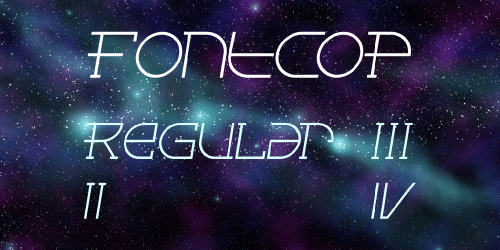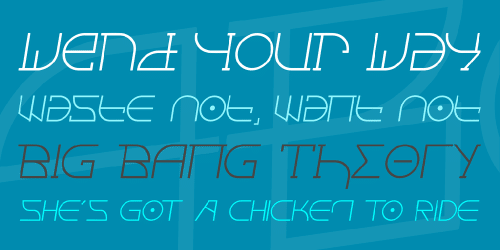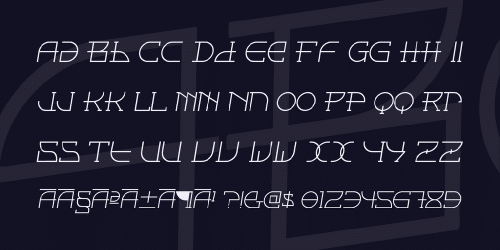
These 4 fonts were called Fontcop for 2 reasons:
1) The politics in the font world had reached one point where someone called don Synstelien felt the urge to release a font and name it Font Pirate. I figure this is the flip side of the coin, since surprisingly among all the fonts out there this name wasn’t yet taken.
2) The letter shapes are envisioned to be something that would be slapped on police cars in futuristic fiction. Robocop was probably playing when Alejandro designed the first few letters of this thing.